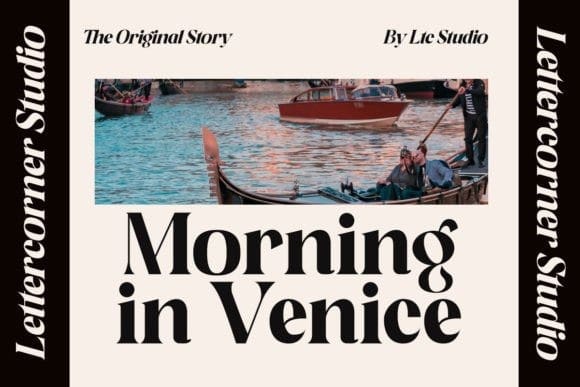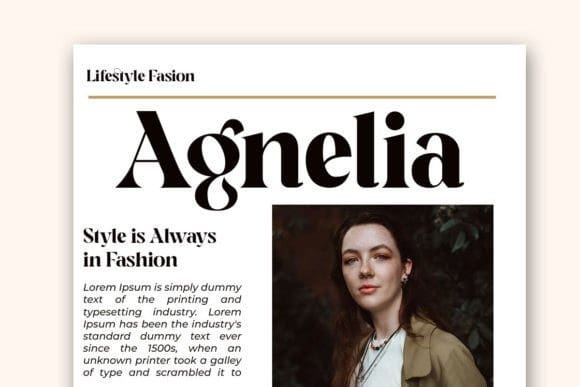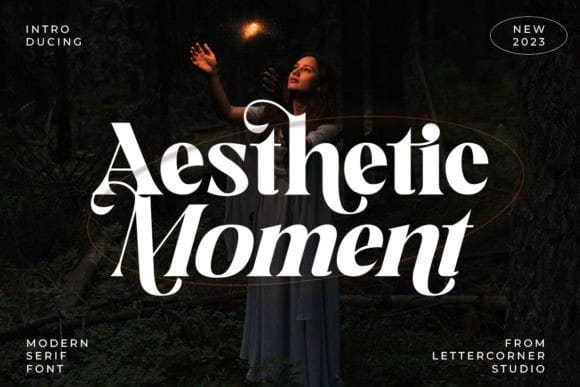
Aesthetic Moment Font
Aesthetic Moment font with medium contrast. Inspired by classic fashion. Carefully designed with a short ascender to give a solid look, also the sharp serif makes the letters look more strong.
Aesthetic Moment is a display-type which perfect for a headline, sub-headline, and short body text for magazine, books, fashion, quotes, hipster t-shirt, signboards, logo, and etc. A great choice for a brave concept!